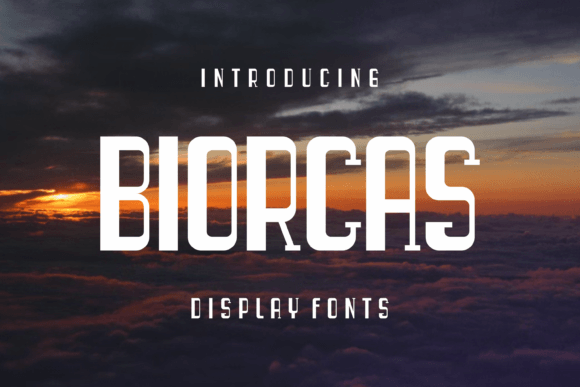
The Biorcas Font: A Modern Design Powerhouse
I’ll never forget the design project that led me to discover the Biorcas font. I was working on a branding campaign for a trendy new coffee shop, and I was struggling to find the perfect font to capture their modern, edgy vibe. The client wanted something that would stand out on social media, but still convey a sense of sophistication. After hours of searching, I stumbled upon Biorcas, and it was love at first sight! 💕
This cool and modern display font has since become a staple in my design library, and I’m excited to share its awesomeness with you. Whether you’re a designer, crafter, or creative hobbyist, Biorcas has the potential to elevate any creation.
- ✨ Versatility: Biorcas can be used for a wide range of projects, from branding and advertising to packaging and digital media.
- ✅ Legibility: Despite its modern, edgy feel, Biorcas remains highly legible, even at smaller font sizes.
- 💥 Impact: This font packs a punch, making it perfect for headlines, titles, and other attention-grabbing elements.
While Biorcas is an amazing font, there are a few things to keep in mind:
- 🤔 Limited use in body text: Due to its display nature, Biorcas might not be the best choice for longer blocks of text.
- ⚠️ Glyph compatibility: Some glyphs or special characters might not work seamlessly across all platforms or software.
- Experiment with OpenType features like Stylistic Alternates and Glyphs to add visual interest.
According to its designer, Biorcas was inspired by the intersection of modern technology and traditional typography. The goal was to create a font that would be both futuristic and timeless, with a unique blend of sleek lines and elegant curves.
| What type of projects is Biorcas best suited for? | Biorcas is ideal for branding, advertising, packaging, and digital media projects that require a modern, attention-grabbing font. |
| Can I use Biorcas for body text? | While Biorcas is a beautiful font, it’s primarily designed for display use. For longer blocks of text, consider using a more traditional font. |
| Is Biorcas compatible with non-Latin languages? | Biorcas supports a range of languages, but compatibility may vary depending on the specific language and platform. |